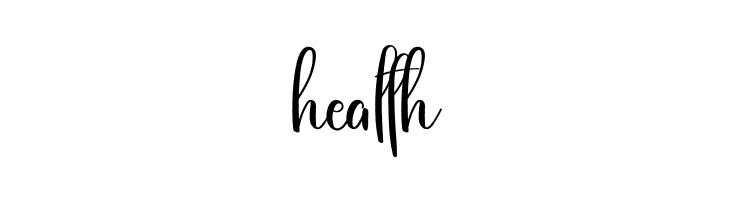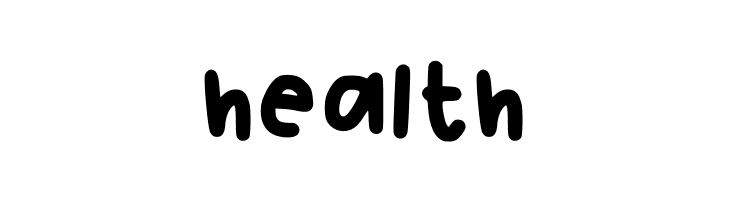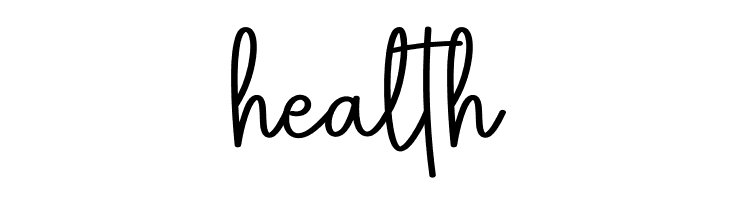
Black Ashpalt Font
Font by Kong Font
A fluid and elegant handwritten script font with a modern touch.
CatalystScript Font
Font by Beautypes
A flowing, elegant script font with smooth, connected strokes.
Endinglove Font
Font by Inermedia Studio
A whimsical and flowing script font with elegant loops and swashes.
Finally Font
Font by Scratchones
A playful, handwritten font with a modern, whimsical style.
Honey Calm Down Regular Font
Font by Maria Divina
A playful, handwritten font with bold, rounded strokes and a casual style.
Outline Kids Regular Font
Font by Amber Masterson
A playful, hand-drawn outline font with a whimsical and friendly style.
Paramount Font
Font by Aestherica Studio
A flowing, cursive script font with elegant, interconnected characters.
rev's messy handwriting Font
Font by revworks.
A casual, handwritten font with a playful and relaxed style.
Richglory Font
Font by Letterative Studio
A casual, handwritten-style font with smooth, flowing curves.
Rundreams Signature Font
Font by Letterena Studios
A sophisticated, elegant handwritten font with fluid, connected letterforms.
The Generous Font
Font by Willetter Studio
A bold, playful handwritten font with thick, rounded strokes.
VinallyDemoRegular Font
Font by Pen Pointype
A playful, casual handwritten font with smooth, flowing lines and a friendly appearance.
White Star Font
Font by Din Studio
A lively handwritten font with fluid strokes and a playful yet elegant style.
Whotney Haeston Font
Font by Integritype Studio
A casual, handwritten font with fluid strokes and a dynamic appearance.
Wild Story Regular Font
Font by olivetype
A playful and whimsical handwritten font with fluid, organic letterforms.